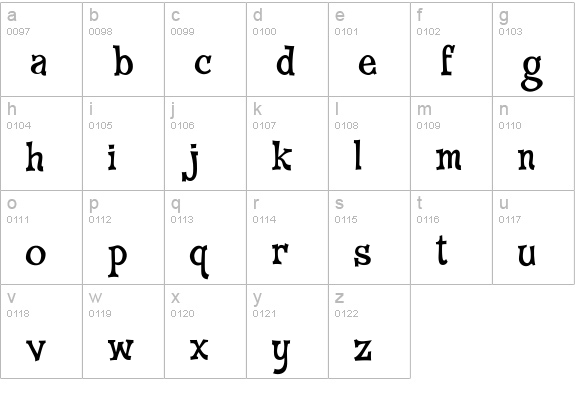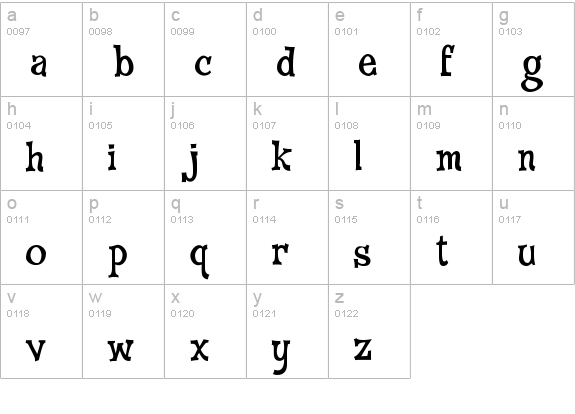
Fink Roman font is a timeless and elegant typeface that exudes sophistication and classic charm. Its refined letterforms and clean lines make it perfect for a variety of design projects, from invitations to branding and beyond. The Fink Roman font is versatile and can easily adapt to different styles and aesthetics, making it a valuable addition to any designer's toolkit.